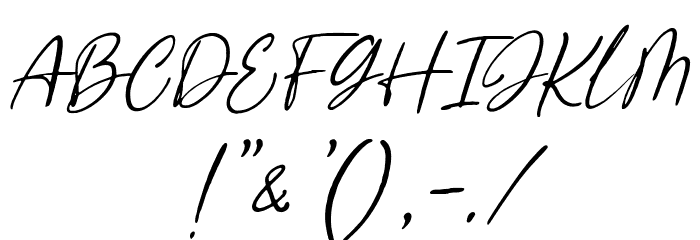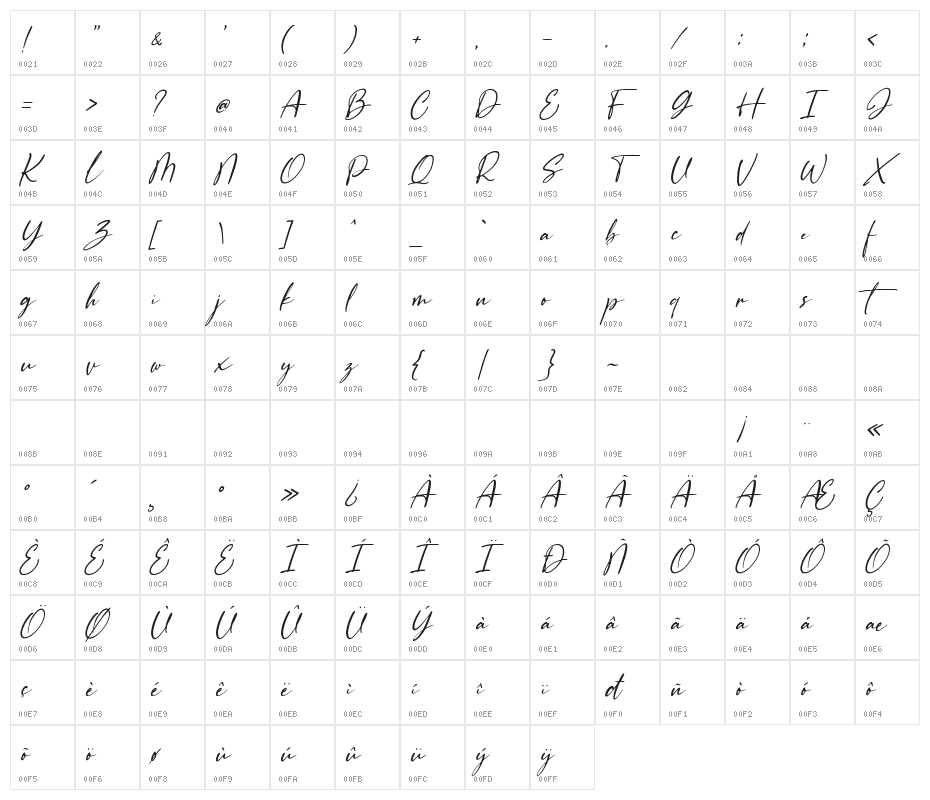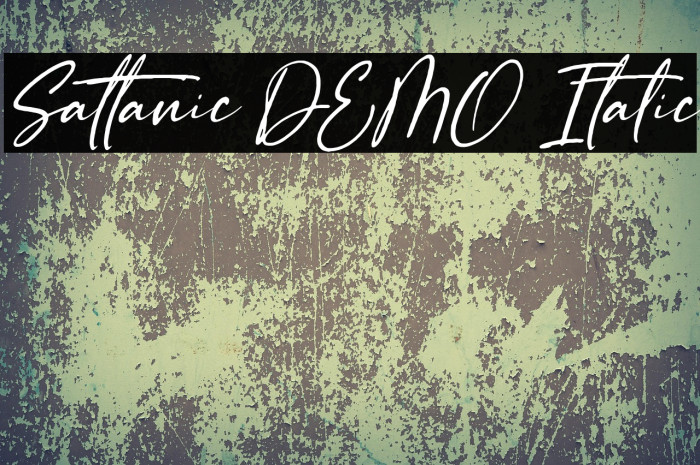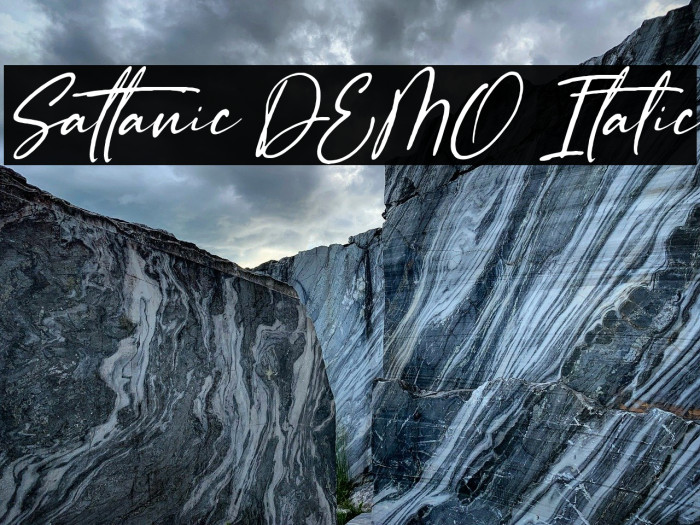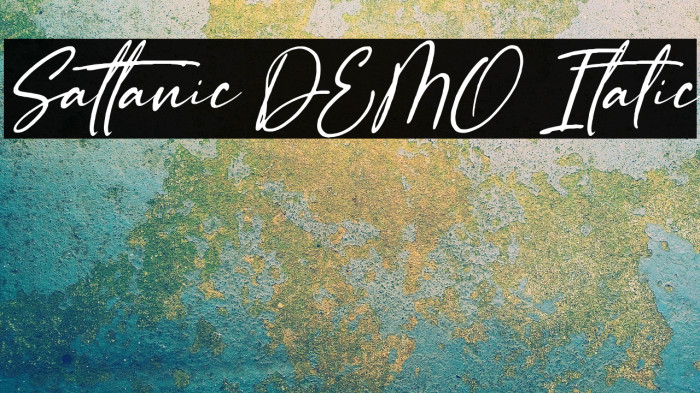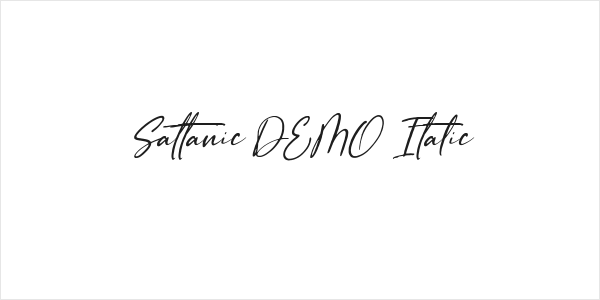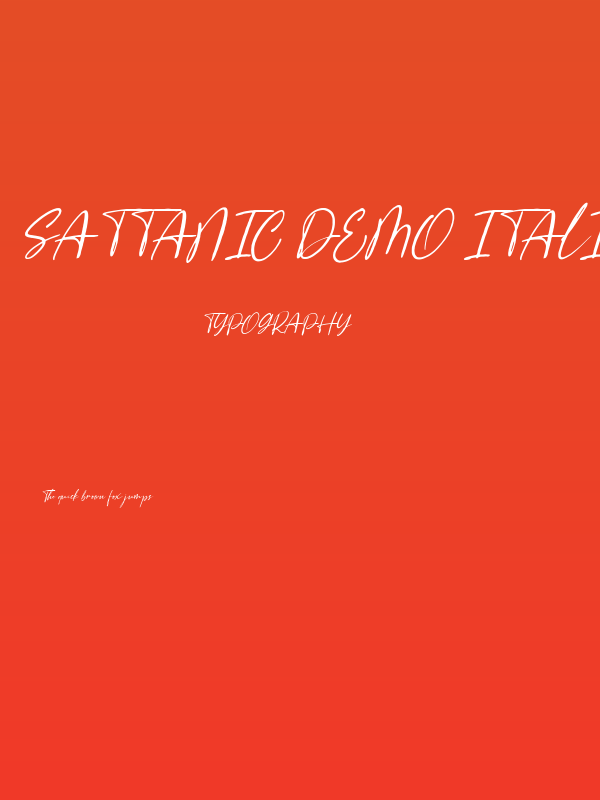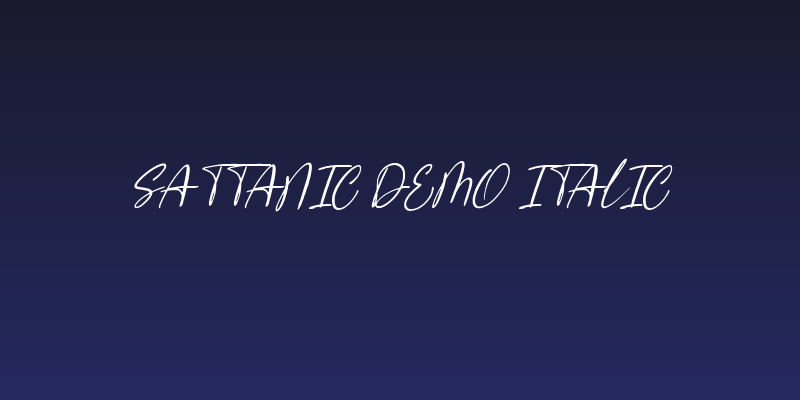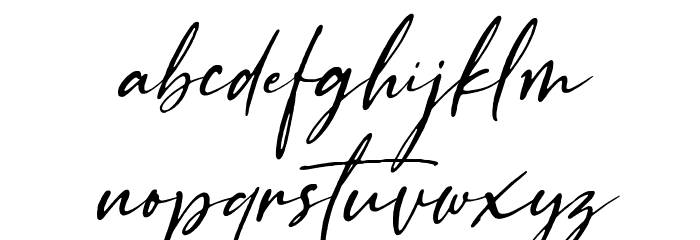
Sattanic DEMO Italic Font
Sattanic DEMO Italic Description
This font exudes a dynamic and expressive style, characterized by its fluid, cursive script. The letters are elegantly connected, creating a sense of movement and flow. Each character is crafted with a distinct flair, featuring elongated strokes and a slight slant that enhances its handwritten appearance. The uppercase letters are bold and prominent, while the lowercase letters maintain a consistent rhythm, adding to the overall harmony of the design. The numerals and special characters are seamlessly integrated, maintaining the font's cohesive aesthetic. This font is perfect for projects that require a touch of sophistication and personality.
| Proposed Projects | Ideal for wedding invitations, branding, logos, and elegant stationery. |